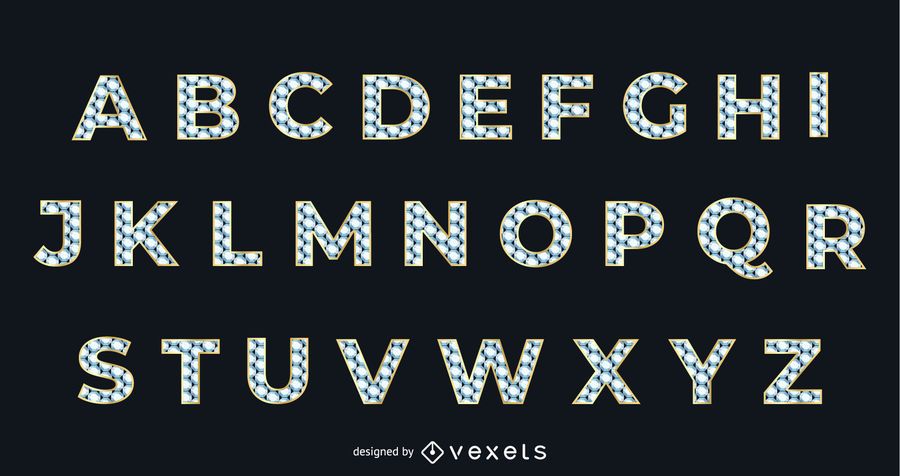
Diamond Texture Golden Alphabetic Typeface
Shiny glowing golden alphabetic typeface font contains A-Z letters with other relevant signs. The alphabets are in uppercase typeface that is filled of series of diamond style texture inside tiny golden outlines and bunch of sparkles around the digits over midnight green darkish background. Enjoy!!